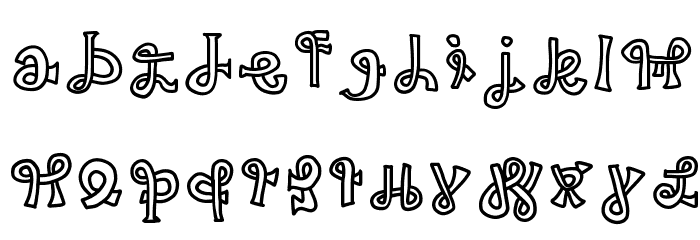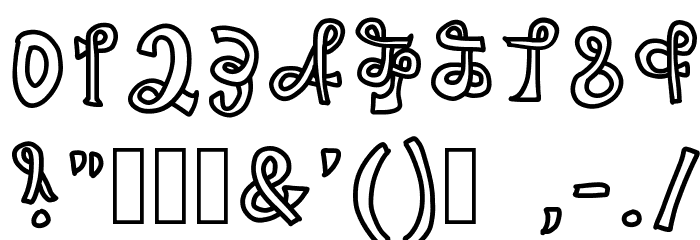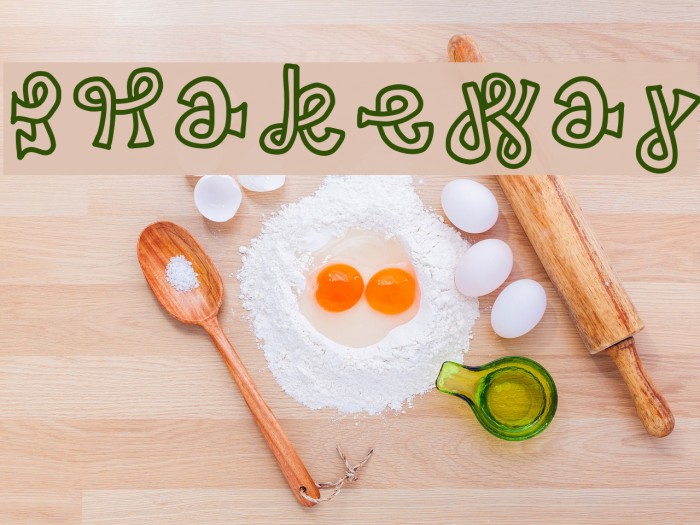
snakeway Font
This font features a unique, decorative style with intricate loops and curves, giving it a playful and whimsical appearance. Each character is designed with a bold outline, enhancing its visibility and making it stand out. The font combines elements of both modern and vintage aesthetics, with a touch of artistic flair. Its distinctiveness lies in the creative use of curves and loops, which add a sense of movement and dynamism to the text. The characters are evenly spaced, providing a balanced and harmonious look. This font is ideal for projects that require a touch of creativity and uniqueness.
A decorative font with bold outlines and intricate loops, offering a whimsical and artistic style.